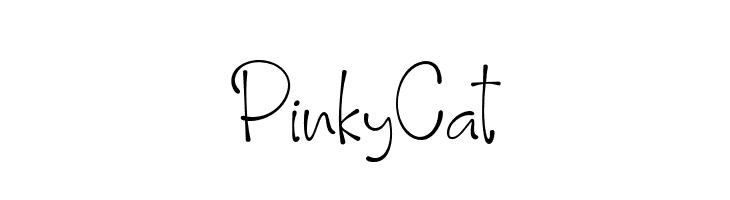
A playful, hand-drawn style font with a comic book feel.
A playful, hand-drawn font with quirky serifs and a lively, cartoonish style.
A futuristic, 3D italic font with bold outlines and geometric shapes.
A dynamic and expressive script font with bold, fluid strokes.
A romantic, heart-adorned italic font with a whimsical and elegant style.
A bold, decorative font with a unique brick pattern, perfect for impactful designs.
A sleek, modern oblique font with smooth curves and sharp edges.
A modern, textured sans-serif font with a fading effect.
A playful, handwritten font with smooth, flowing lines and a casual feel.
Intricate decorative frames and borders with unique patterns.
A modern, monospaced italic font with uniform character spacing.
A playful, bold font with rounded, bubbly characters.
A flowing, cursive font with interconnected characters and a sophisticated style.
A bold, expanded italic font with a modern and dynamic style.
A sleek, modern italic font with smooth curves and a dynamic appearance.
A futuristic, angular font with a bold, 3D italic design.
A bold, italicized font with a modern, dynamic style and medium contrast.
A grid-patterned, geometric font with a modern, digital aesthetic.
A playful, bold font with rounded, thick strokes and a hand-drawn feel.
A bold, cursive font with a hand-painted, sign-like style.
A playful handwritten font with dynamic and fluid letterforms.
A lively and expressive handwritten font with dynamic strokes and playful characters.
A bold, 3D italic font with a futuristic and dynamic style.
A futuristic, geometric font with a 3D effect and bold, angular lines.
A bold, decorative Art Nouveau font with intricate line work and geometric patterns.
The image contains decorative symbols, not a valid font.
A bold, artistic font with dynamic strokes and a modern, playful style.